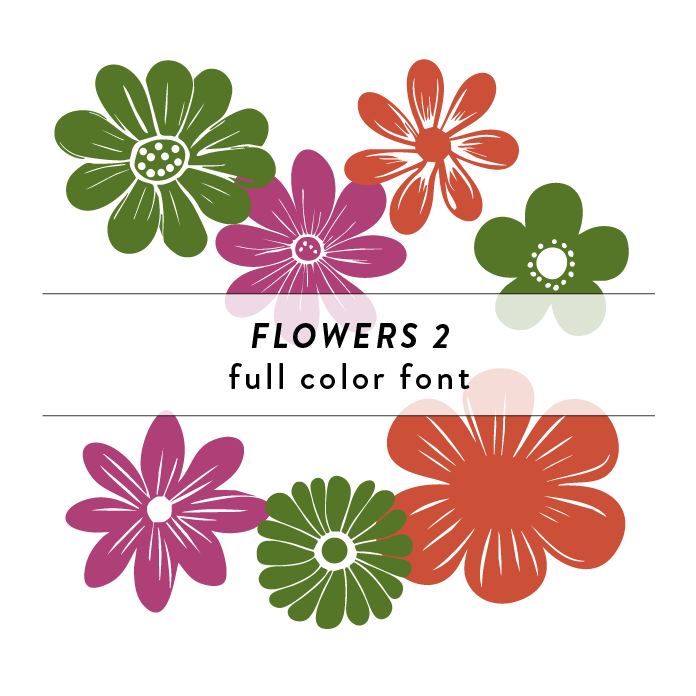
Flowers 2 Full Color Font is a vibrant and intricate font design inspired by the beauty of summer blooms. Featuring delicate floral patterns in a range of colors, this decorative font adds a touch of whimsy to any project. Perfect for invitations, greeting cards, and branding materials that require a cheerful and feminine touch. This font is a OTF craft font that will appear in color only when used with the silhouette software.